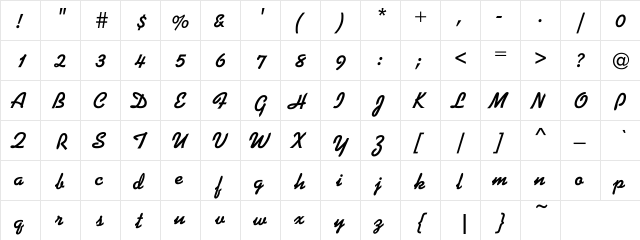
Kauflinn Regular Font Preview
Kauflinn Regular
Kauflinn Regular Font Details
Design Context for Kauflinn Typeface
Kauflinn is a composed and adaptable typeface that performs quietly and consistently across a wide range of design contexts.